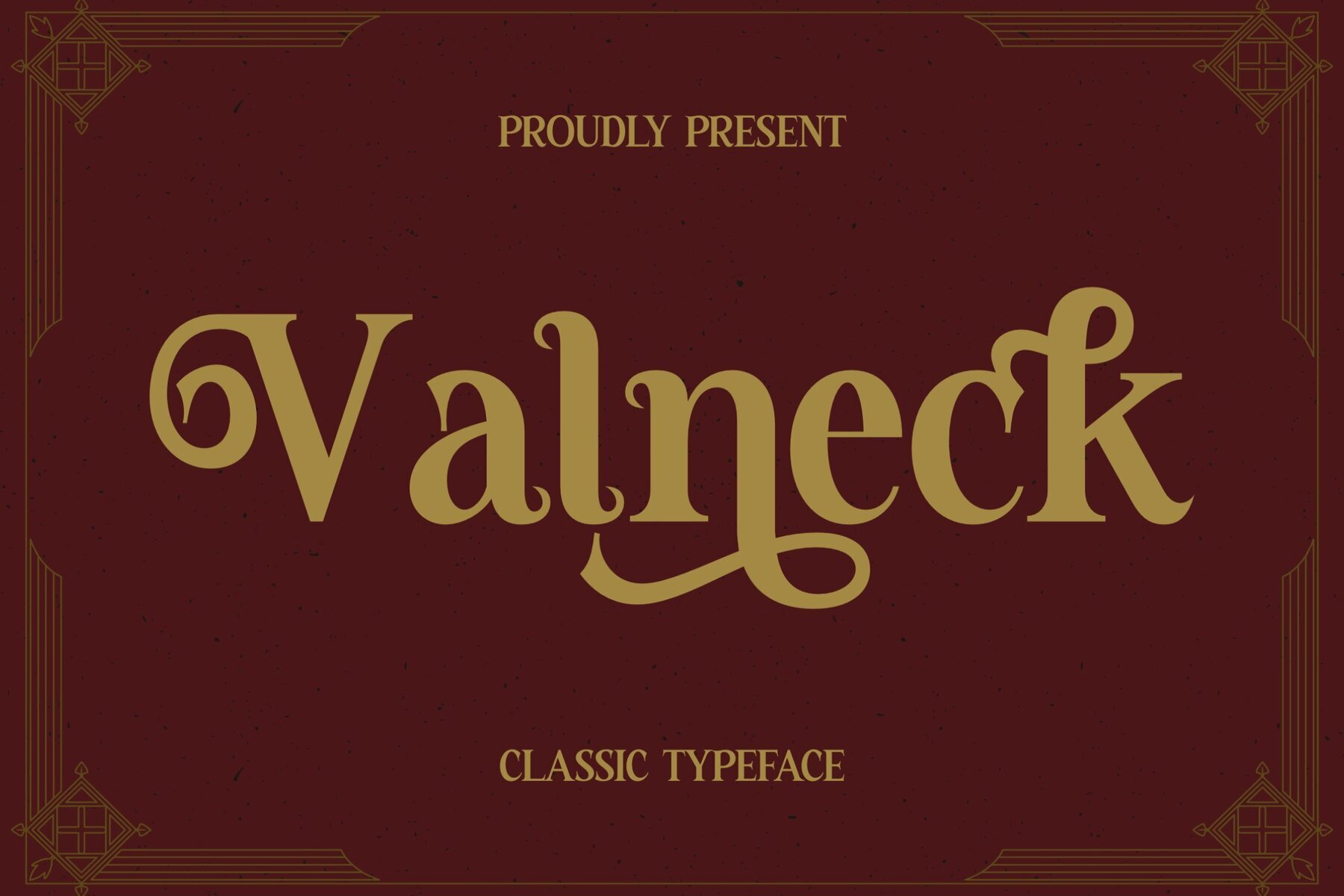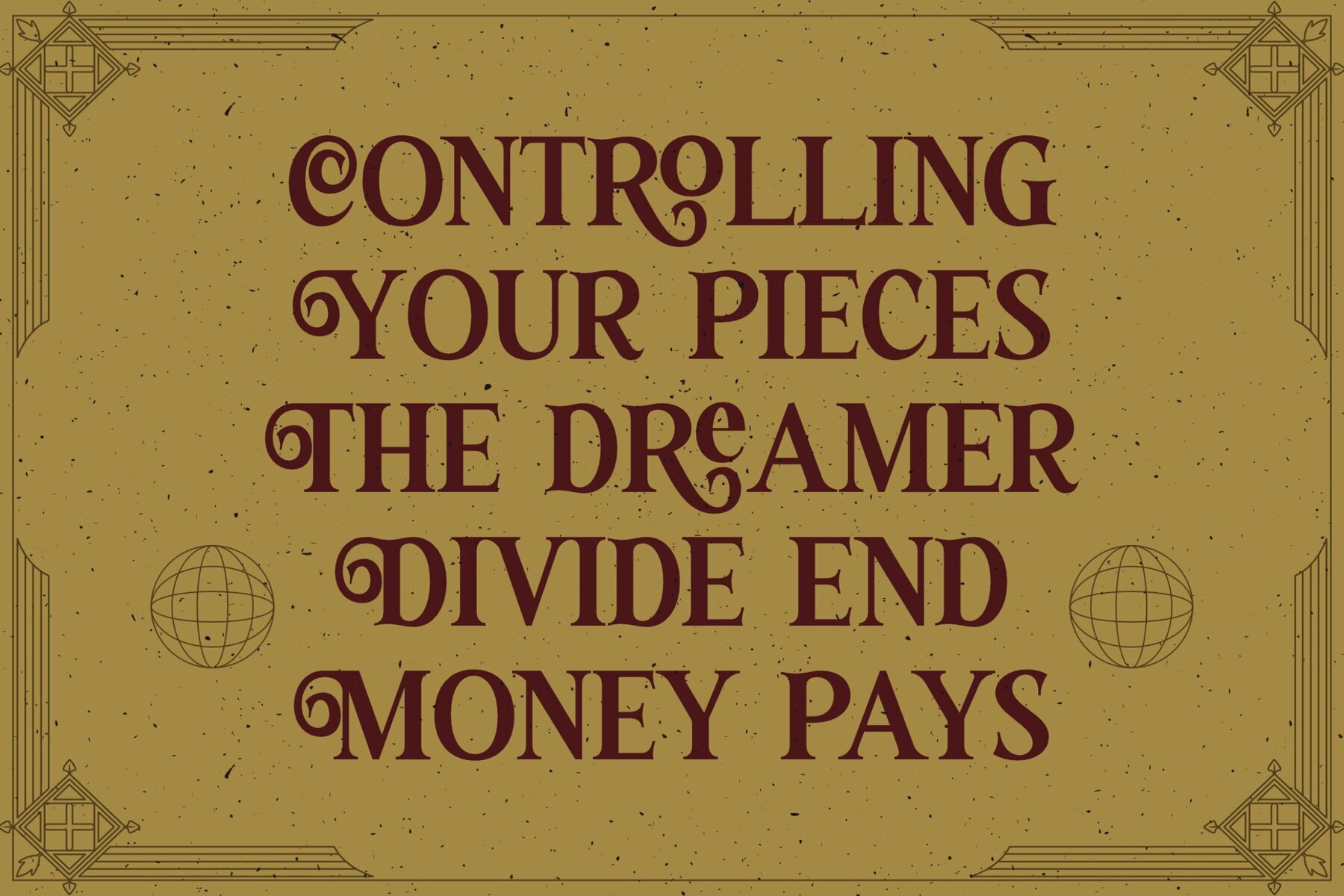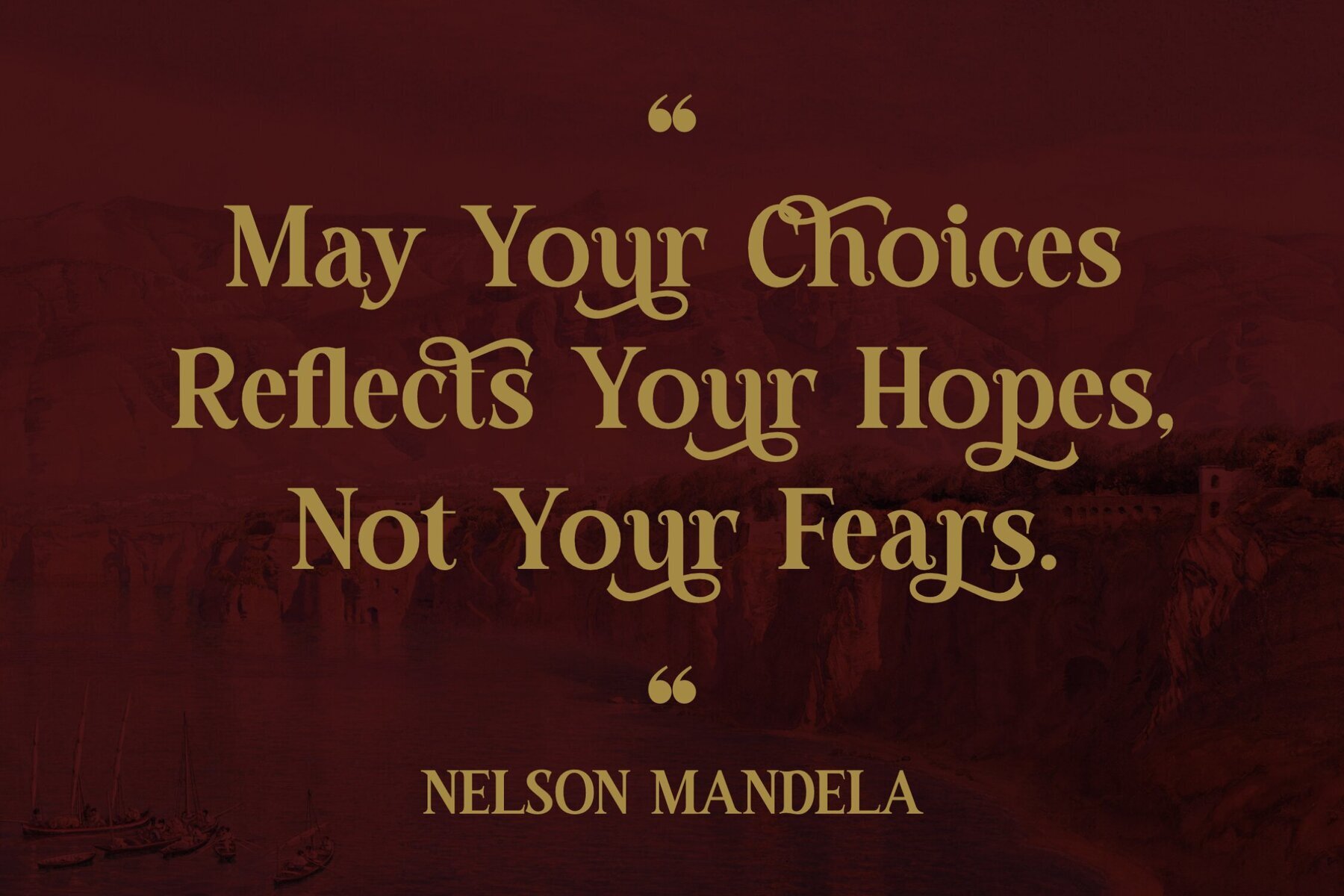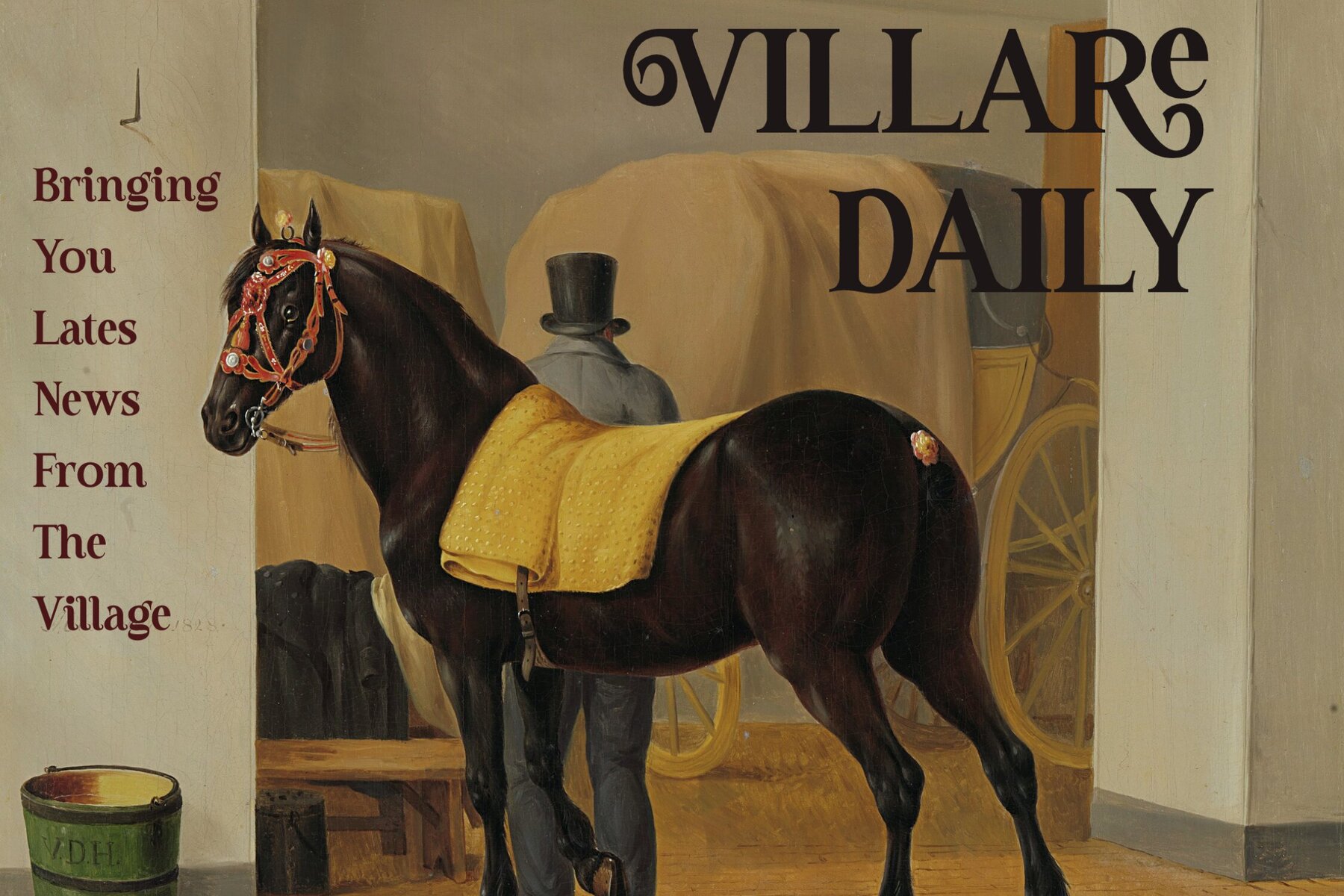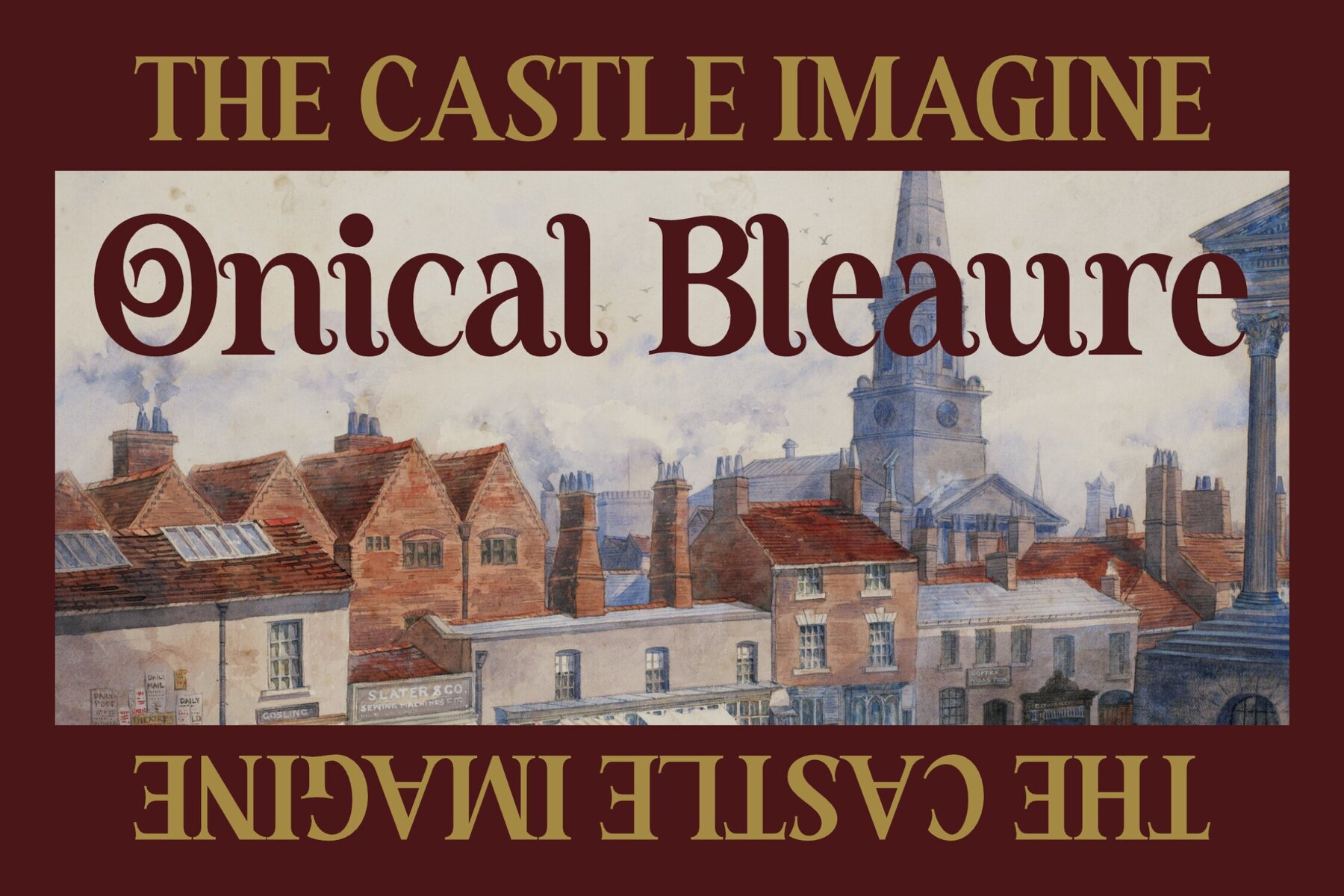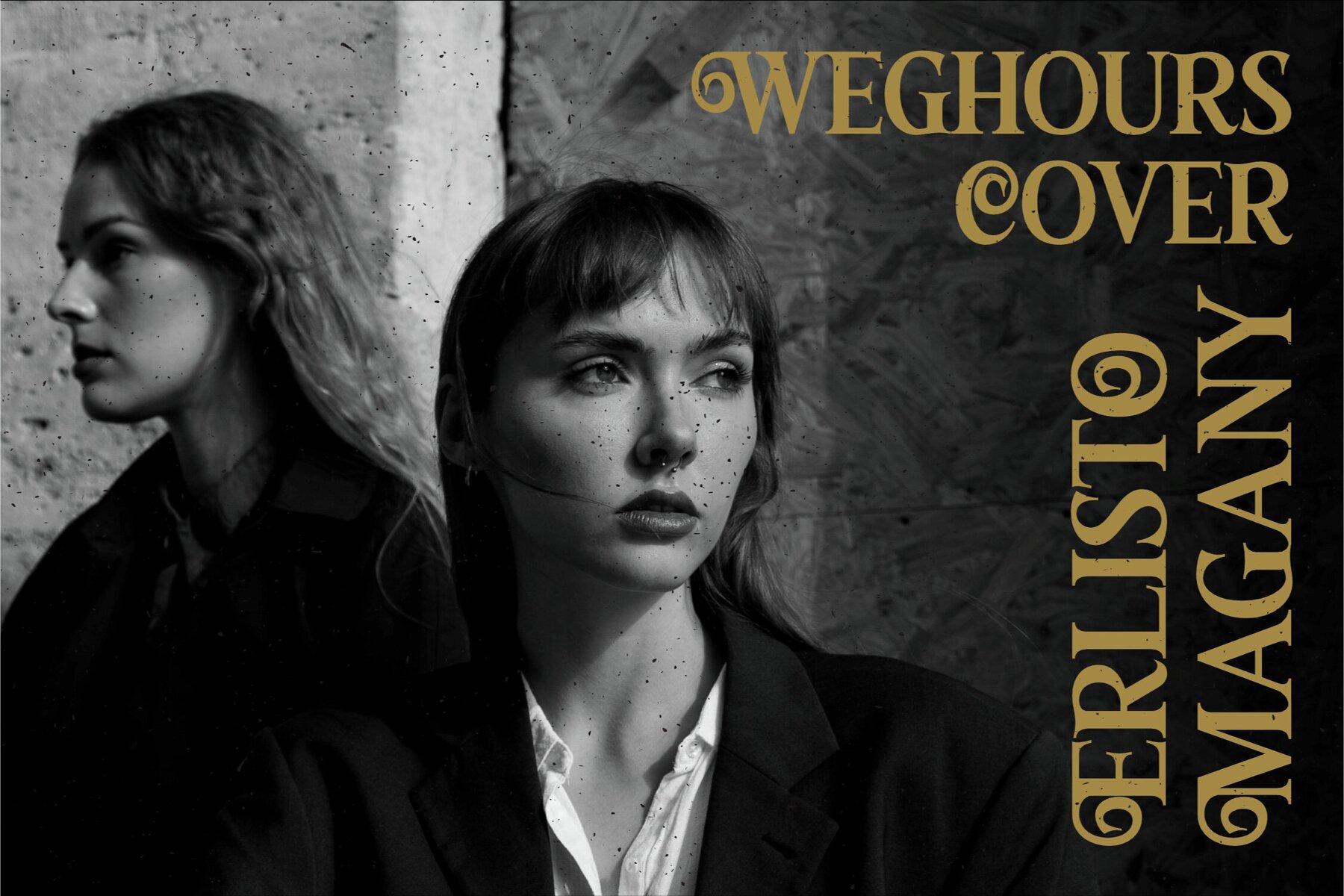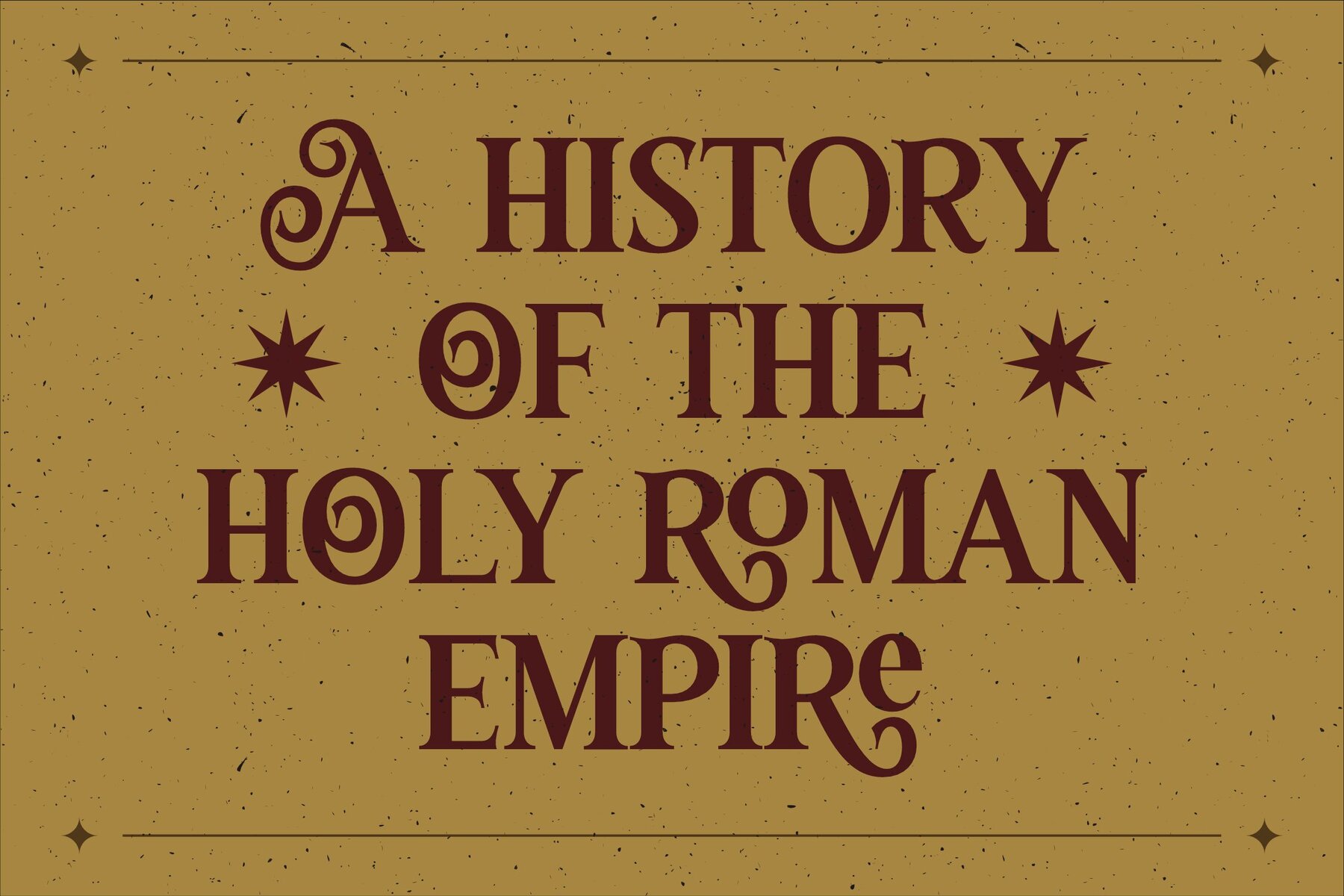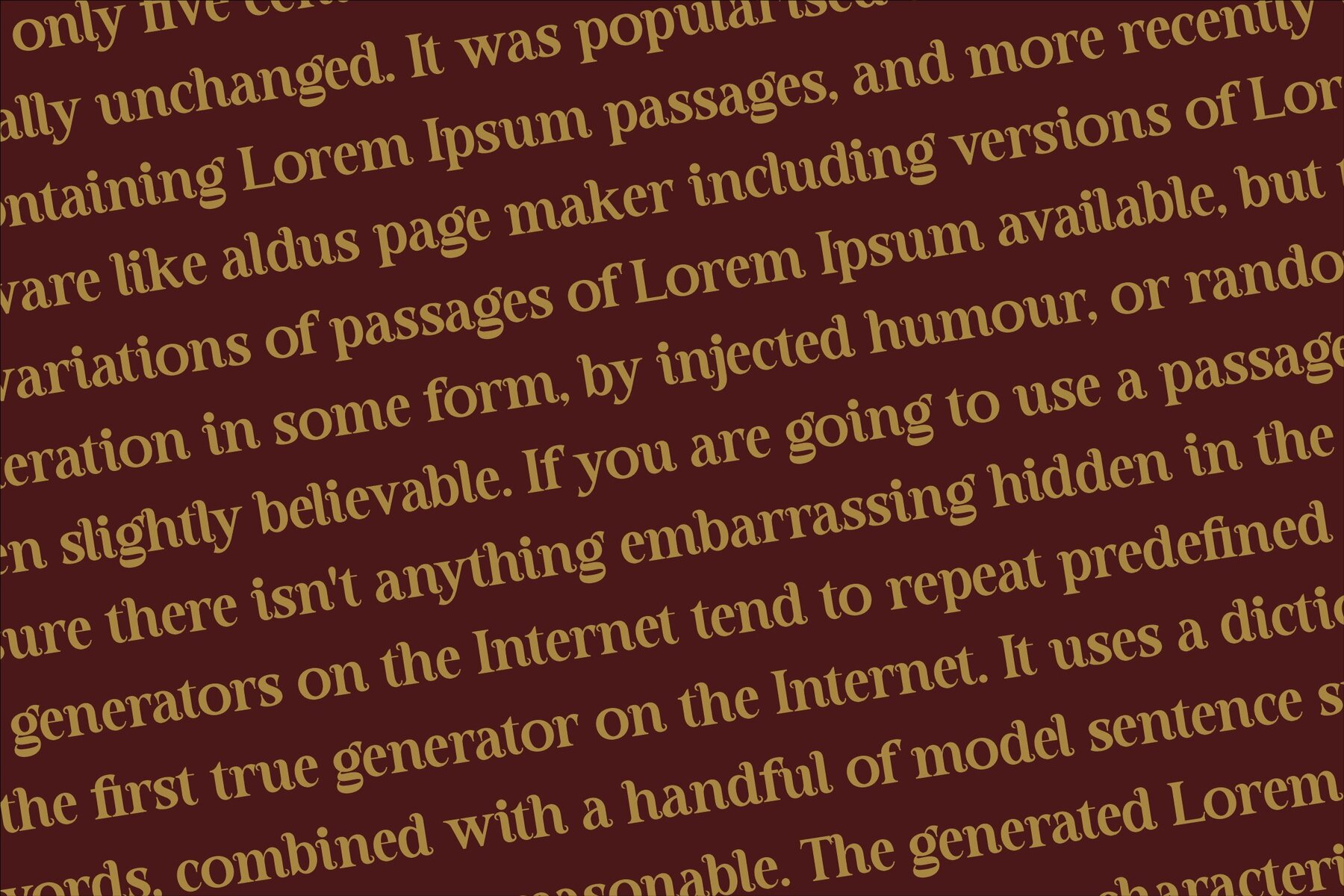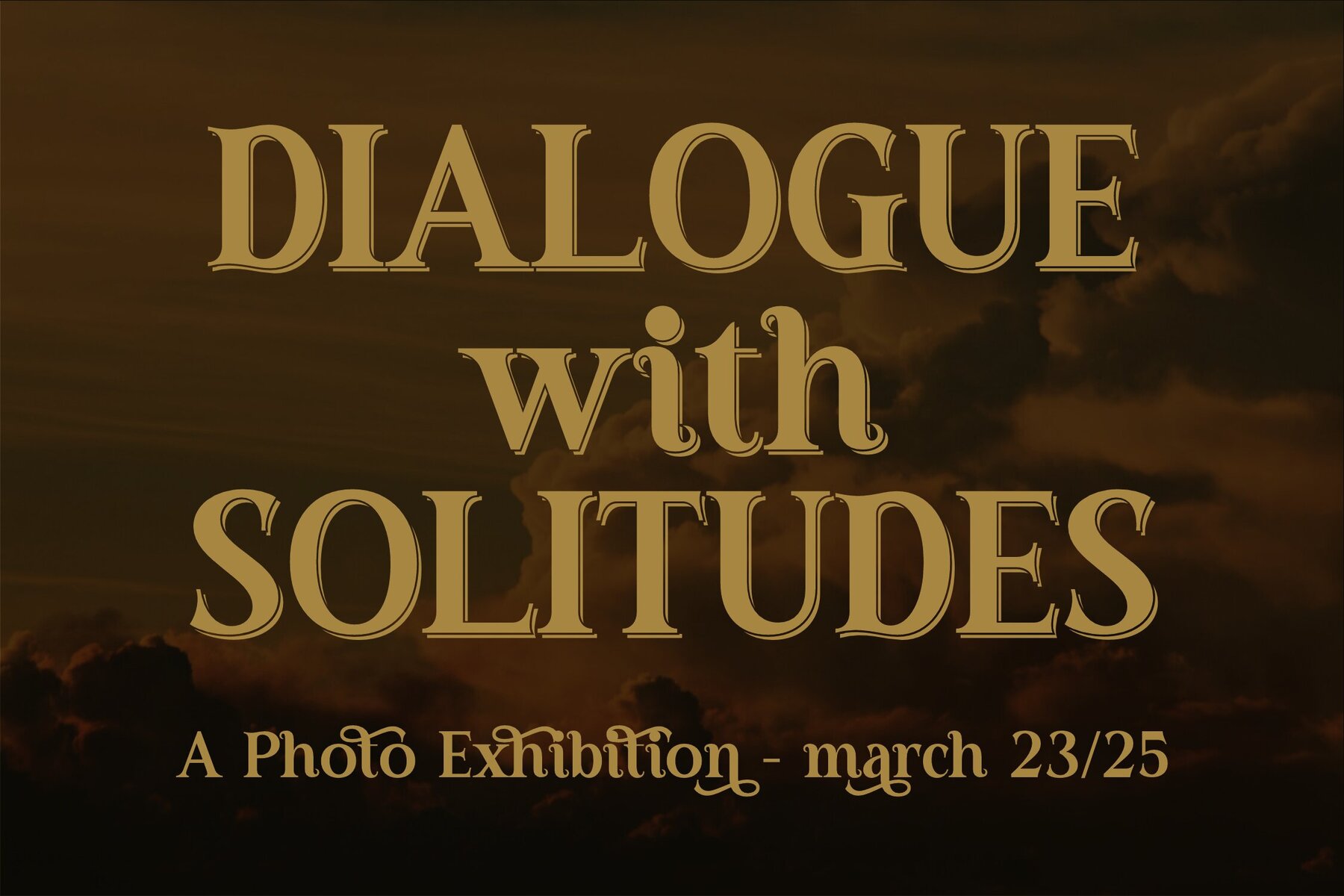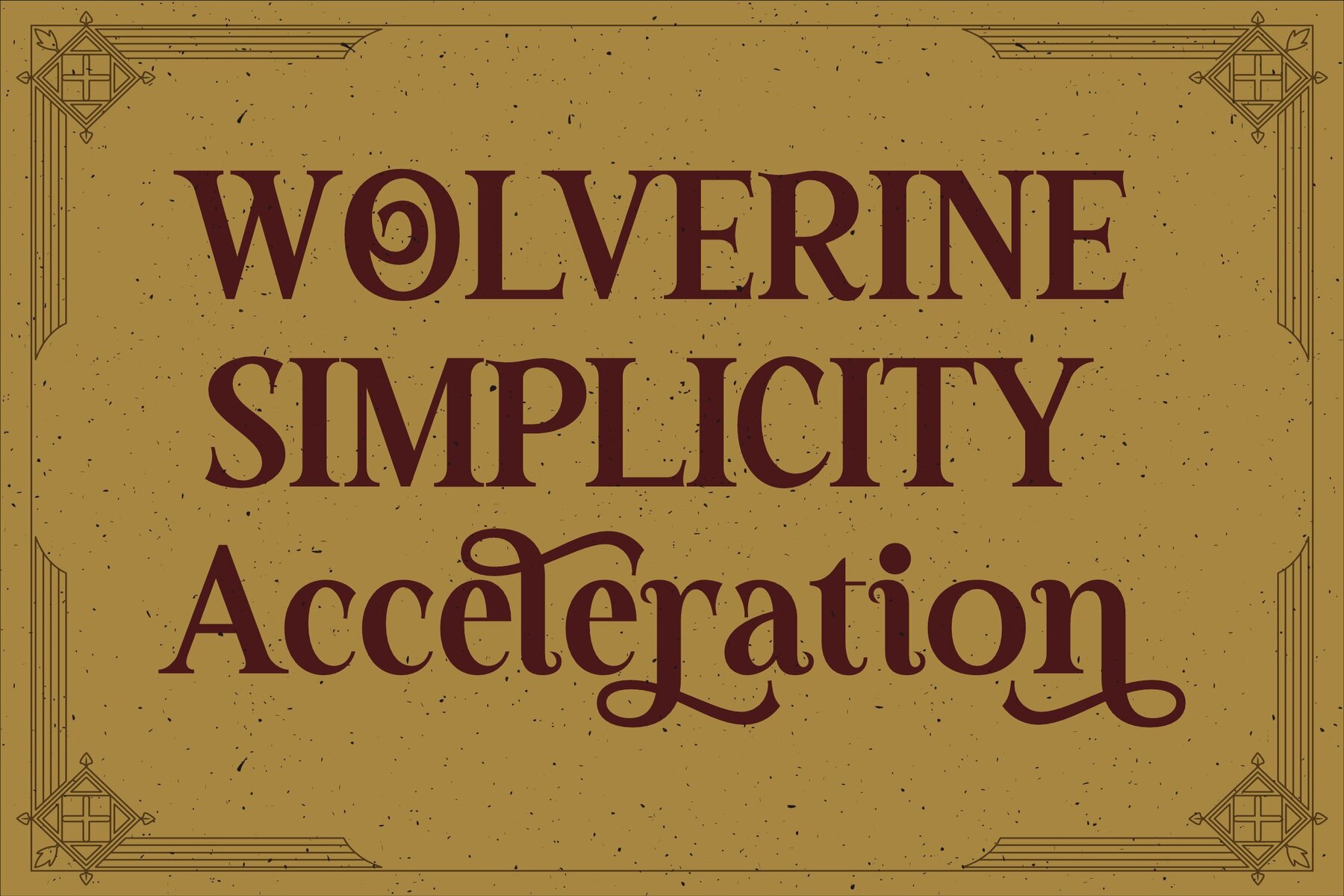
Valneck Font
Discover the elegant charm of Valneck Typeface by Storytype Studio. This modern serif font combines timeless classicism with a unique, contemporary flair. Effortlessly elevate your designs, whether it's crafting luxurious logos, creating captivating book and movie titles, or defining fashion brands. Valneck seamlessly adapts to magazine layouts, clothing lines, and inspirational quotes, offering unparalleled versatility.Valneck Typeface